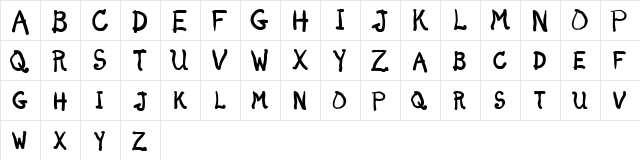
Dunno Regular
| Designer | Stanley Roland Frantz |
Design Context for Dunno Typeface
Dunno is a composed and adaptable typeface that performs quietly and consistently across a wide range of design contexts.